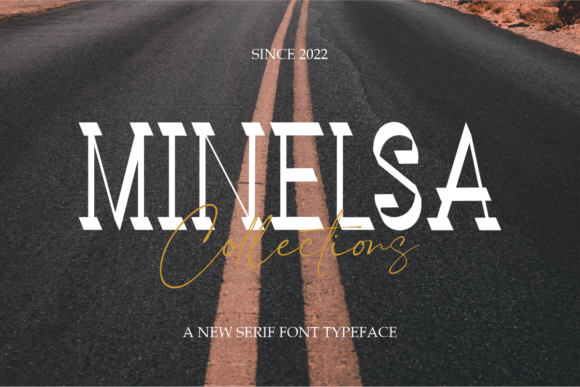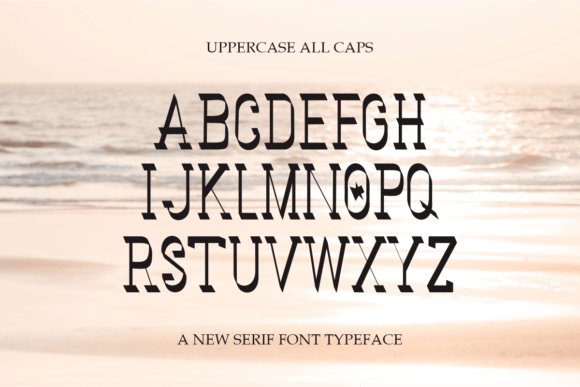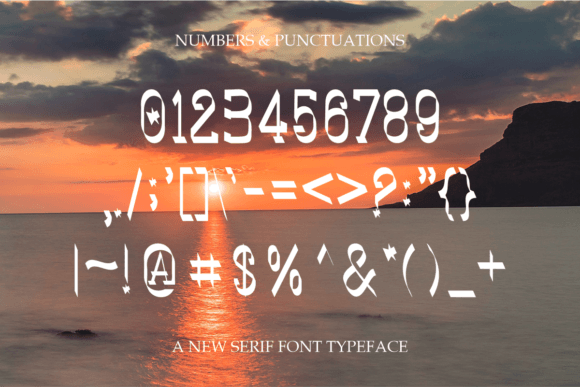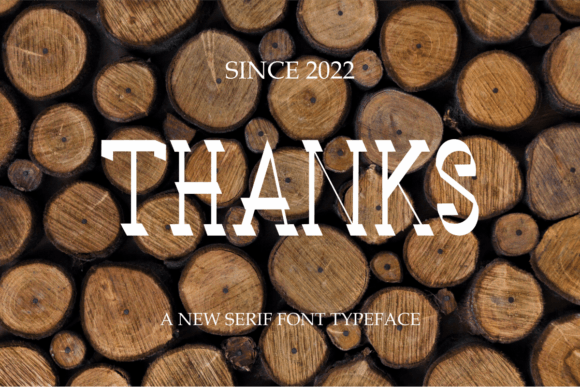
Introduction to Minelsa Font
Imagine you’re working on a creative project, pouring your heart and soul into every detail, and then – you need the perfect font to tie it all together. The search is on, but nothing seems to fit. That’s when you stumble upon Minelsa Font – a game-changer for designers everywhere.
With its simple, elegant, and authentic serif design, Minelsa Font is the perfect addition to any project. Whether you’re working on a high-quality design resource or need a free download for a specific task, this font is sure to elevate your work. Its versatility and high-quality design make it an ideal choice for designers who want to add a touch of sophistication to their creative ideas.
As a valuable design resource, Minelsa Font offers a transparent background that allows it to seamlessly integrate into any design. Its free download makes it easily accessible, and its high-quality design ensures that it will stand out in any creative project. So, what are you waiting for? Add Minelsa Font to your design arsenal and watch your projects shine.
Key Features of Minelsa Font
- High-quality, professional font suitable for various creative projects, including graphic design, digital art, and publishing.
- Transparent background, allowing for seamless integration with other design elements and easy editing.
- Designed to be highly legible and versatile, with a range of weights and styles to suit different design needs.
Honest Review: Minelsa Font
I recently had the chance to work with the Minelsa Font for a creative project, and I was pleasantly surprised by its quality. As a design resource, it’s definitely worth considering for any project that requires a high-quality, unique font.
- What works well: ✨ The Minelsa Font is highly customizable, allowing for seamless integration into any design. Its transparent background makes it easy to layer over other elements, and its clean lines give it a modern feel.
However, there are some limitations to consider. ⚠️ The Minelsa Font may not be suitable for all projects, particularly those that require a more traditional or serif font. Additionally, some users may find the font’s modern feel to be too bold or overpowering.
Overall, I was impressed by the Minelsa Font’s quality and versatility. While it may not be the best fit for every project, it’s definitely a great option for designers working on high-quality, creative projects that require a unique and modern font.
Tips for Getting the Most Out of Minelsa Font
To get the most out of Minelsa Font, use it with a transparent background to create a clean and modern design. You can also experiment with different font sizes, colors, and styles to add visual interest to your project.
Minelsa Font is a versatile font that can be used in a variety of creative projects, including logos, brochures, and social media graphics. It’s also a great choice for designers who want a high-quality font with a transparent background.